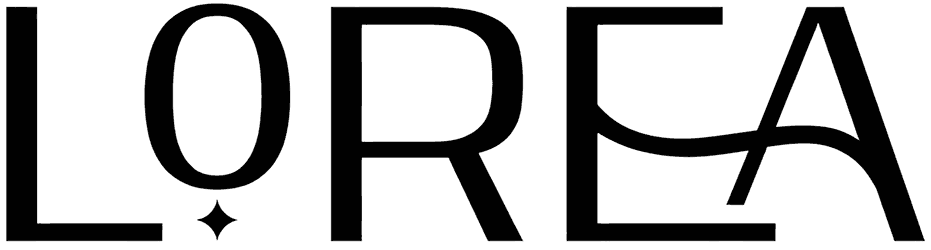
Lorea Font
Specific and bold is a precise definition of this sans serif font that can be used for any design with any taste. Lorea consists of elegant and classic letters and conveys a deathless vibe. This useful logo font doesn’t cover lowercase letters, but it still will work well for a lot of innovative designs, such as logos, magazine covers, titles, and so on.